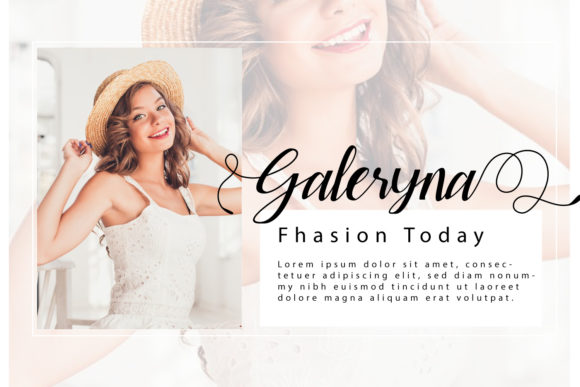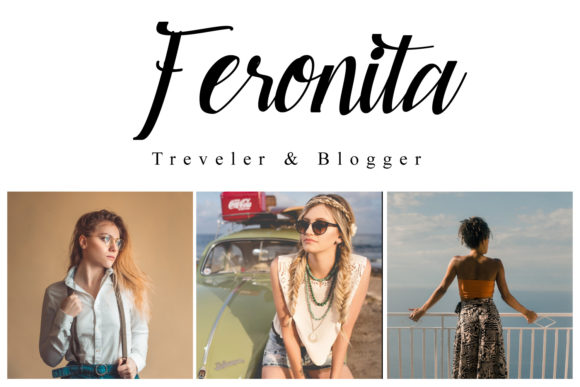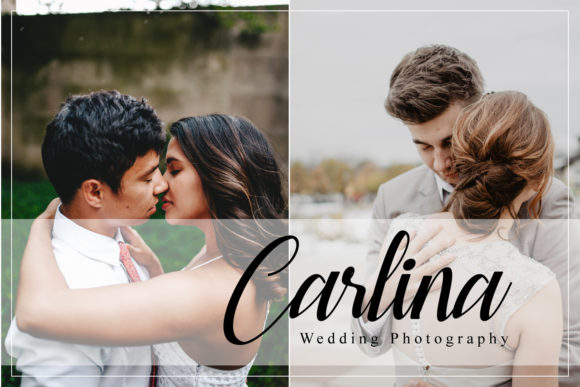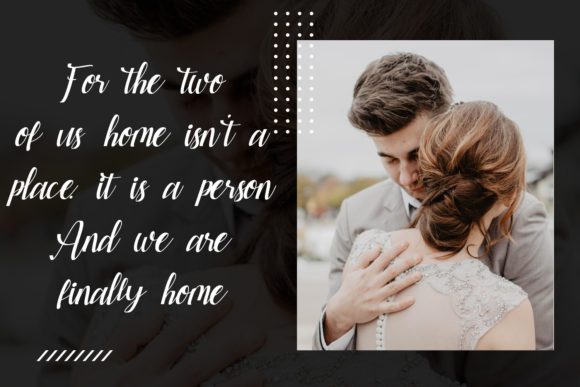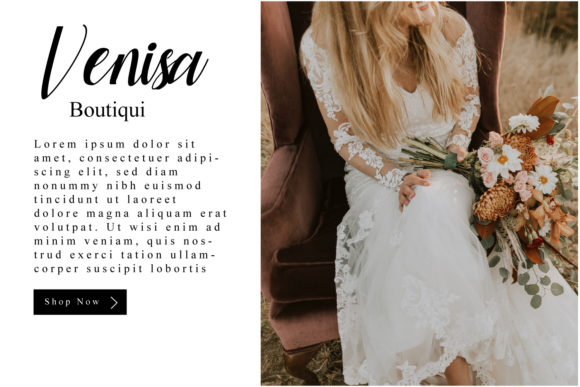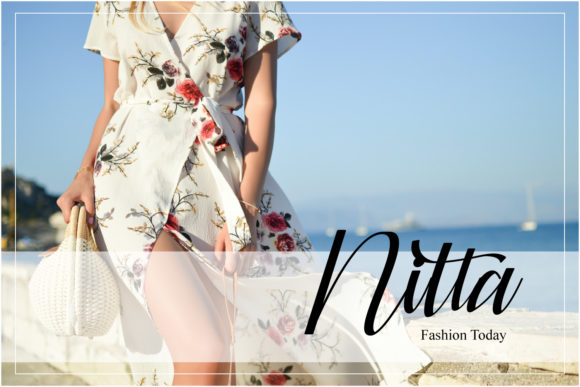
Gabriella Font
About Gabriella Font
Gabriella is a stylish and classic script font. It looks breathtaking on wedding invitations, thank you cards, quotes, greeting cards, logos, business cards and every other design which needs a handwritten touch. This font is PUA encoded which means you can access all of the glyphs and swashes with ease!